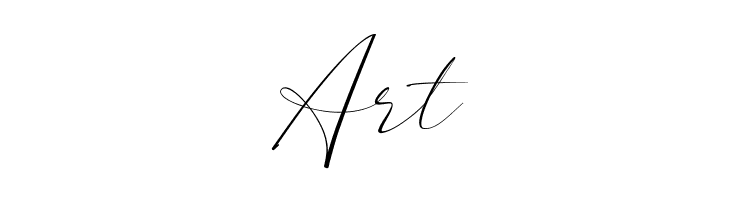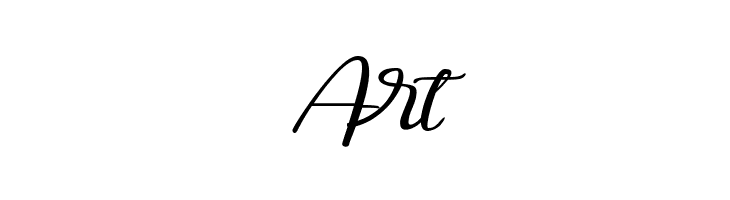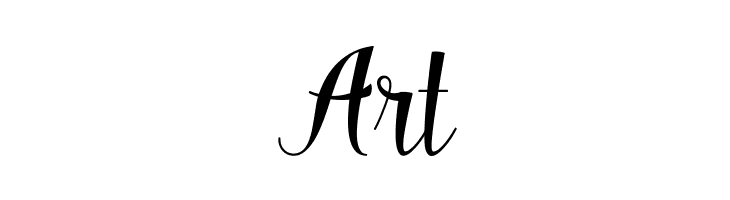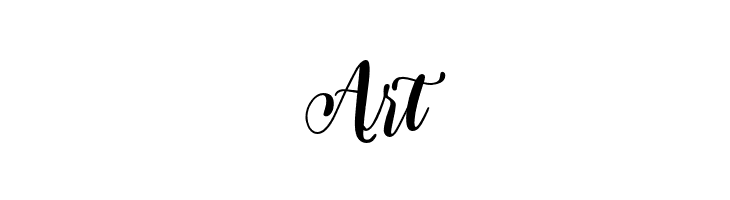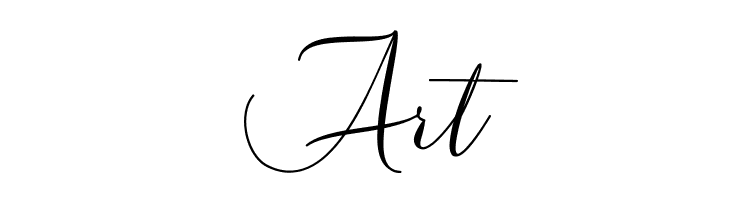
An elegant and fluid script font with graceful, flowing lines and delicate curves.
A graceful and flowing script font with elegant, continuous strokes.
A graceful script font with fluid, connected strokes and a natural handwriting style.
A graceful script font with flowing, connected strokes and a handwritten feel.
A modern, elegant script font with graceful curves and unique swashes.
A graceful and elegant script font with flowing cursive strokes.
A graceful and artistic script font with elegant loops and flourishes.
A graceful and ornate script font with flowing, cursive letterforms.
An elegant and flowing script font with graceful curves and swashes.
An elegant and flowing script font with graceful loops and smooth cursive strokes.